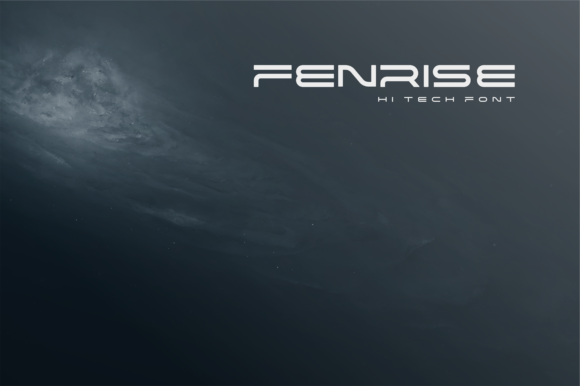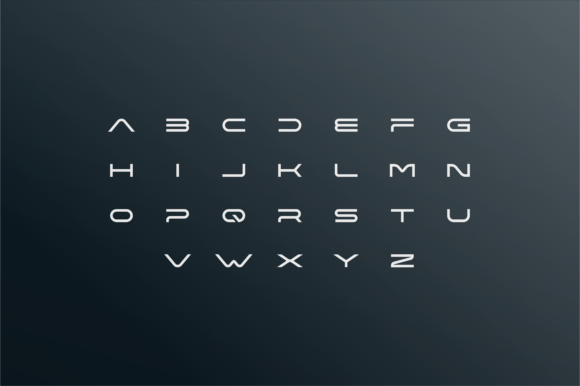
Fenrise Font: Elevate Your Designs with a Modern, Elegant, and Futuristic Display Font
In the world of design, typography plays a crucial role in conveying messages, expressing creativity, and setting the tone for a brand or project. With the vast array of fonts available, finding the perfect one that stands out from the crowd can be a daunting task. However, if you’re looking for a modern, elegant, and futuristic display font that can elevate your designs, look no further than Fenrise Font.
What is Fenrise Font?
Fenrise Font is a contemporary, high-end display font designed to add a unique touch to your creative projects. Its sleek lines, sophisticated curves, and futuristic aesthetic make it an ideal choice for designers, crafters, and businesses looking to make a statement. Whether you’re working on a website, business card, or any other design project, Fenrise Font is sure to turn heads.
Key Features of Fenrise Font
- Modern and Elegant: Fenrise Font boasts a sleek, modern design with elegant curves and lines, perfect for creating sophisticated and stylish designs.
- Futuristic Aesthetic: The font’s futuristic look and feel make it ideal for projects that require a cutting-edge, avant-garde approach.
- Highly Versatile: Fenrise Font can be used for a wide range of design projects, from web designs and business cards to posters, brochures, and more.
- Unique Touch: The font’s distinctive style ensures that your designs stand out from the crowd, making it perfect for brands and projects that want to make a lasting impression.
Use Cases for Fenrise Font
Fenrise Font is an incredibly versatile font that can be used in various design projects, including:
- Web Design: Use Fenrise Font to create stunning website headers, titles, and other design elements that require a modern and elegant touch.
- Business Cards: Make a lasting impression with Fenrise Font on your business cards, ensuring that your brand stands out from the competition.
- Graphic Design: Fenrise Font is perfect for creating eye-catching posters, brochures, flyers, and other graphic design materials.
- Branding: Use Fenrise Font to create a unique and memorable brand identity that reflects your business’s values and personality.
Tips for Using Fenrise Font
To get the most out of Fenrise Font, here are some tips to keep in mind:
- Use it sparingly: Fenrise Font is a display font, so use it sparingly to create emphasis and visual interest.
- Pair it with complementary fonts: Combine Fenrise Font with complementary fonts to create a harmonious and balanced design.
- Experiment with colors and textures: Don’t be afraid to experiment with different colors and textures to add depth and visual interest to your designs.
| Font Name | Fenrise Font |
| Author | Letterna |
Fenrise Font is a modern, elegant, and futuristic display font that can elevate your designs and help you stand out from the crowd. With its highly versatile design, unique aesthetic, and wide range of use cases, Fenrise Font is an excellent choice for designers, crafters, and businesses looking to make a statement. So why settle for ordinary fonts when you can make a statement with Fenrise Font?
Whether you’re a seasoned designer or a crafty DIY enthusiast, Fenrise Font is sure to inspire your creativity and help you bring your design visions to life. So go ahead, explore the possibilities of Fenrise Font, and discover a world of limitless design potential.